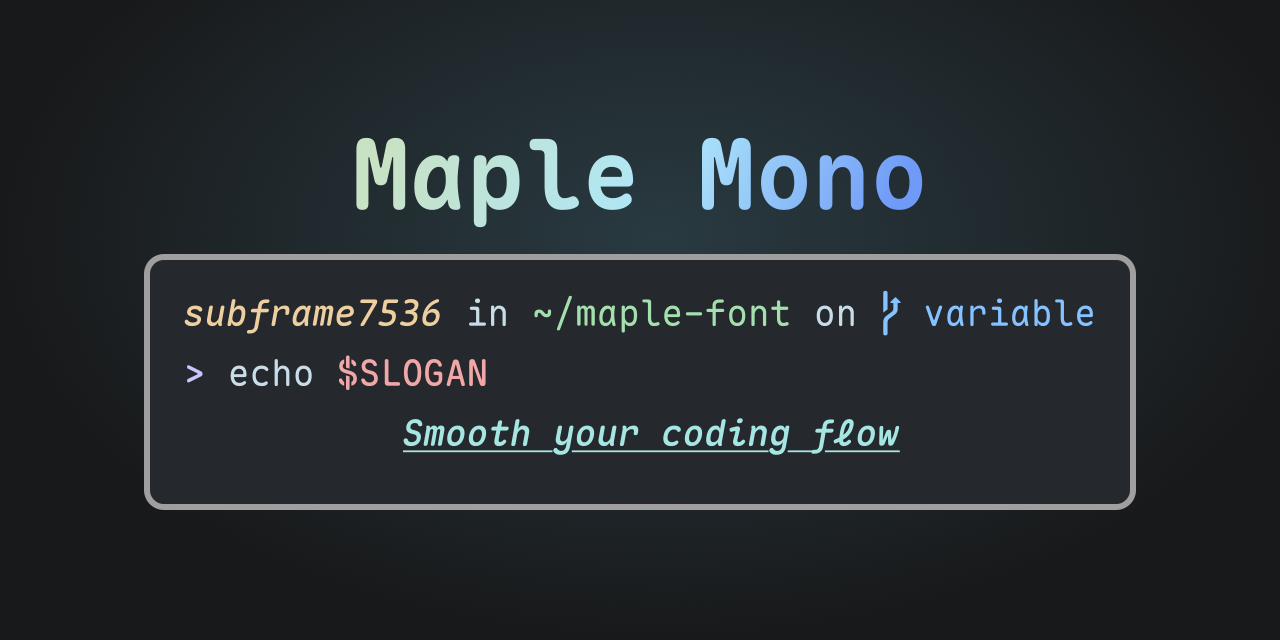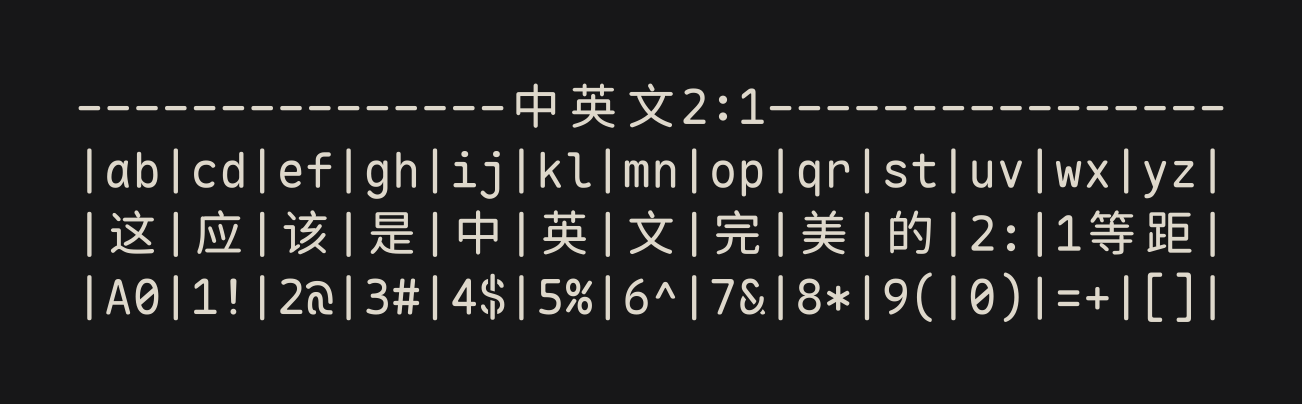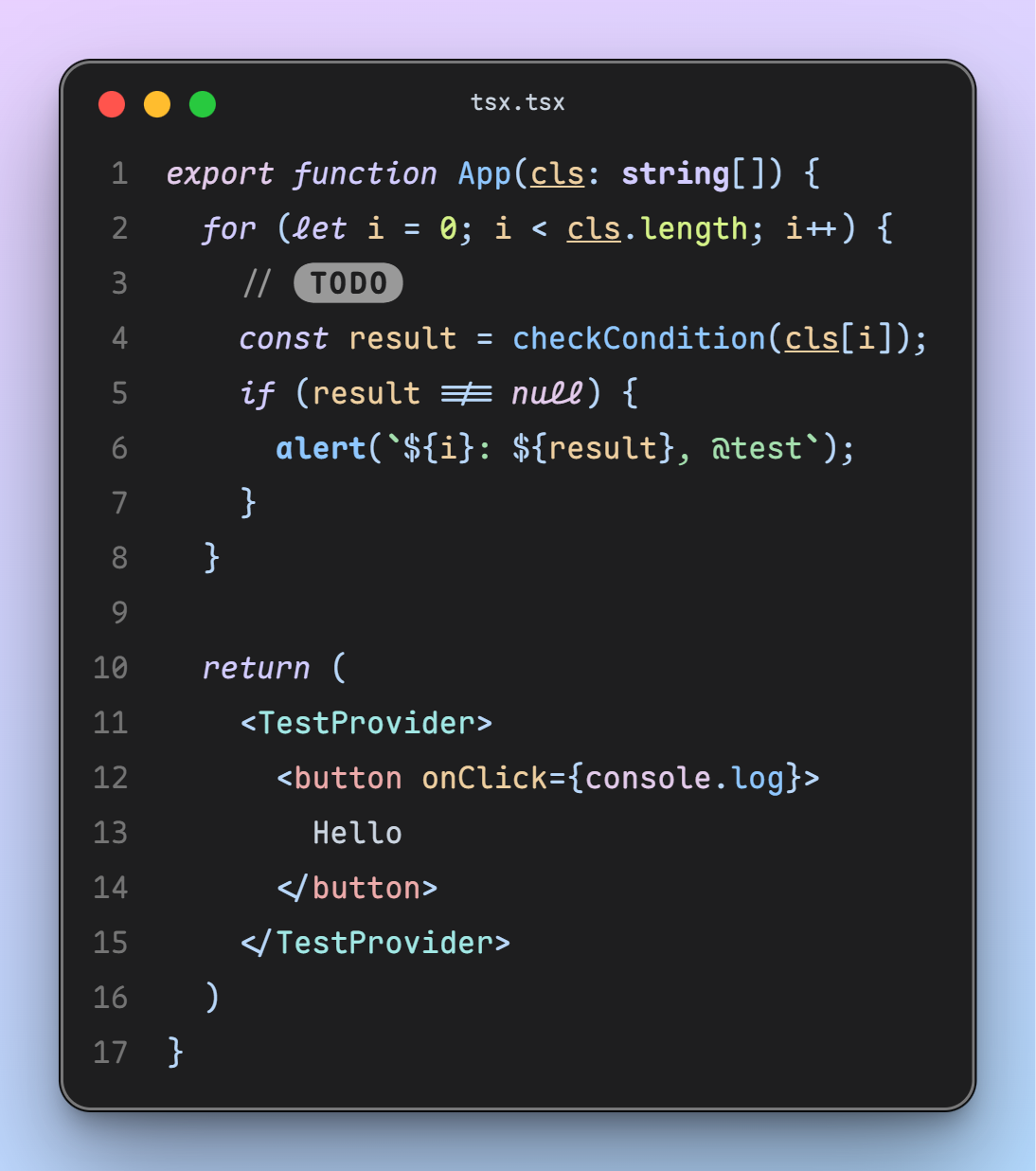
Maple Mono
Maple Mono is an open source monospace font focused on smoothing your coding flow.
I created it to enhance my working experience, and hope that it can be useful to others.
V7 is a completely remade version, providing variable font format and source files of the font project, redesigning more than half of the glyphs, and offering smarter ligatures. You can checkout V6 here
Features
- ✨ Variable - Infinity font weights with fine-grained italic glyphs.
- ☁️ Smooth - Round corner, brand-new glyph of
@ $ % & Q ->and cursivef i j k l x yin italic style. - 💪 Useful - Large amount of smart ligatures, see in
features/ - 🎨 Icon - First-Class Nerd-Font support, make your terminal more vivid.
- 🔨 Customize - Enable or disable font features as you want, just make your own font.
Simplified Chinese, Traditional Chinese, and Japanese
CN version based on Resource Han Rounded provides complete character set support for Chinese development environments, including Simplified Chinese, Traditional Chinese, and Japanese. Meanwhile, the characteristic of perfect 2:1 alignment between Chinese and English allows this font to achieve a neat, uniform, beautiful, and comfortable appearance in scenarios such as multilingual display and Markdown tables. However, the spacing of Chinese characters is larger compared to other popular Chinese fonts. See details in release notes and this issue.